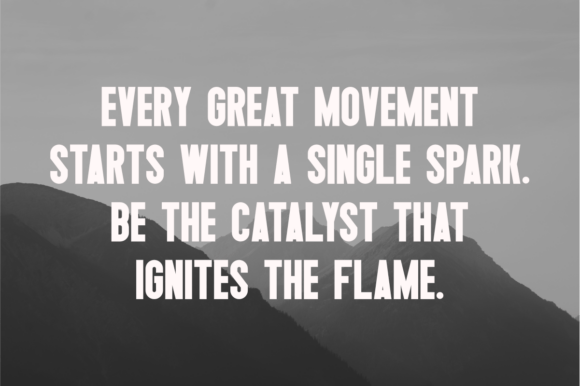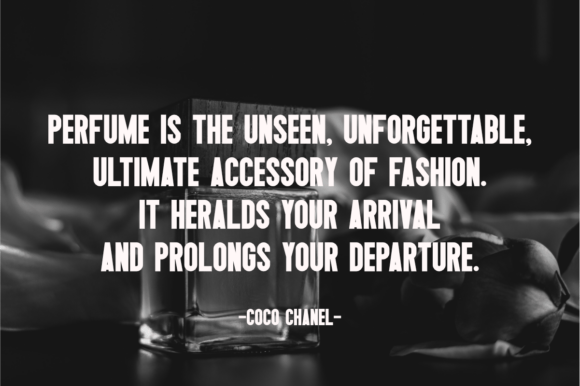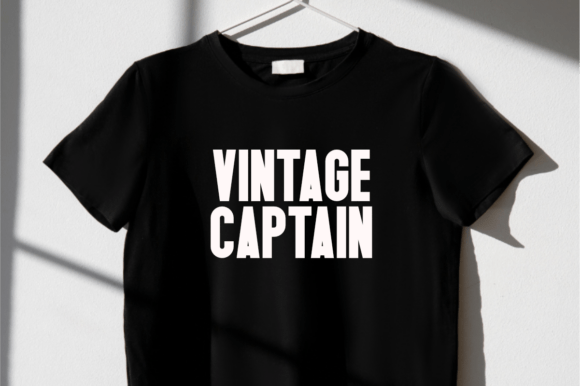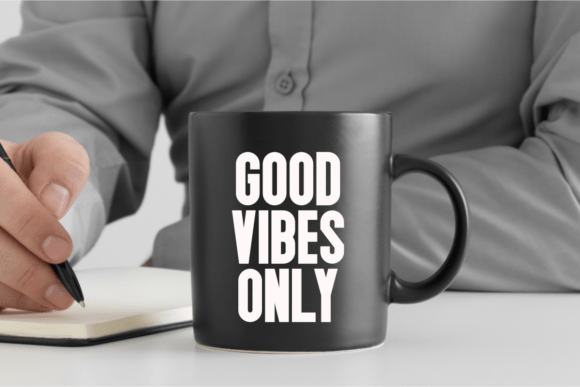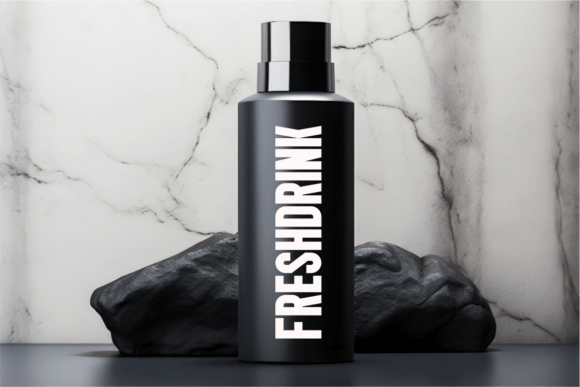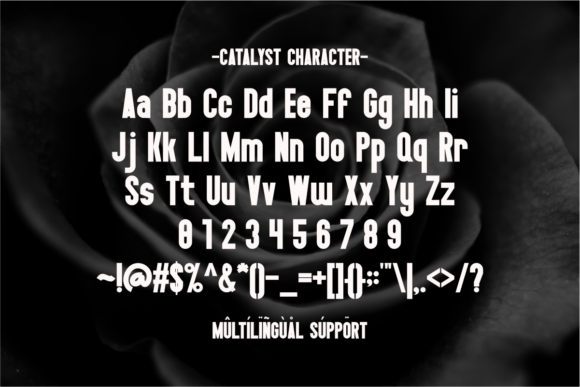
The Power of Catalyst Font: A Designer’s New Best Friend
I’ll never forget the time I was working on a project for a fashion brand, and I needed a font that would make their headlines pop. I spent hours scrolling through font libraries, but nothing seemed quite right. That was until I stumbled upon Catalyst Font. Its bold, condensed sans serif design immediately caught my eye, and I knew I had found the perfect fit. In this article, I’ll share my experience with Catalyst Font, its features, and how to make the most of it in your designs.
An Honest Review of Catalyst Font
- ✨ Bold and condensed design: Catalyst Font is perfect for making a statement with your headlines and titles.
- ✅ Versatile: It can be used for a wide range of projects, from fashion and beauty to Easter, Valentine’s Day, and Black History-themed designs.
- 💡 Easy to read: Despite its condensed design, Catalyst Font remains clear and legible, even at smaller sizes.
While Catalyst Font is an excellent choice for many projects, there are a few things to keep in mind:
- 🤔 Limited use for body text: Due to its condensed design, Catalyst Font may not be the best choice for longer blocks of text.
- ⚠️ Not ideal for small sizes: While it’s legible, Catalyst Font may lose some of its impact when used at very small sizes.
The Backstory of Catalyst Font
Catalyst Font was designed with the modern designer in mind. Its creator aimed to craft a font that would be both bold and versatile, suitable for a wide range of projects. Inspired by the urban landscape and modern typography, Catalyst Font is the perfect choice for designers looking to make a statement.
| Font Name | Catalyst Font |
| Author | Pian45 |
Q: What is Catalyst Font best used for?
A: Catalyst Font is perfect for headlines, titles, and short blocks of text where you want to make a bold statement.
Q: Is Catalyst Font suitable for body text?
A: While it’s legible, Catalyst Font’s condensed design makes it less ideal for longer blocks of text.